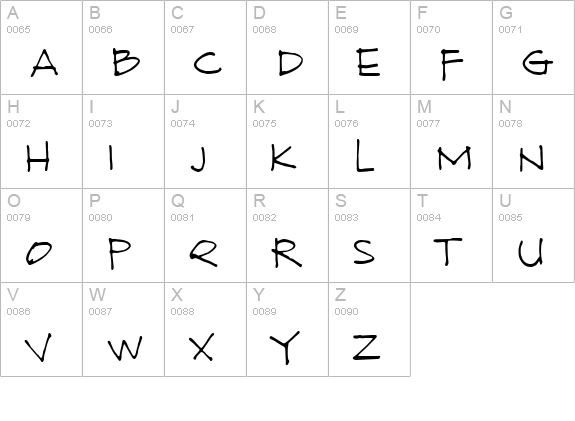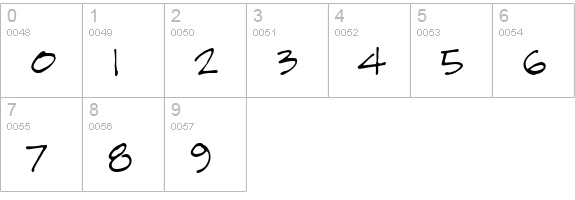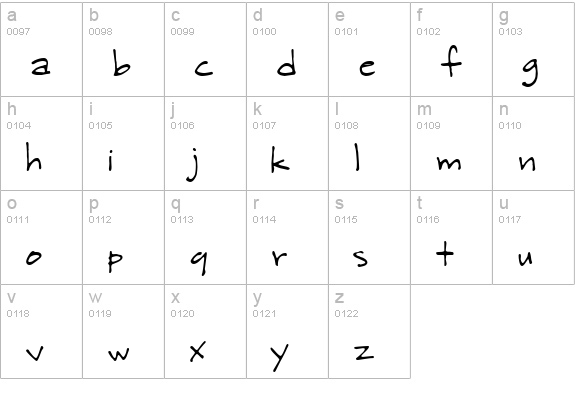
CK Sketch font is a whimsical and playful typeface that adds a hand-drawn touch to any design project. Its unique hand-lettered style gives a fun and casual feel, making it perfect for a variety of creative projects such as posters, greeting cards, and social media graphics. The uneven lines and quirky characters of CK Sketch font bring a sense of authenticity and charm to your designs. What's even better is that CK Sketch font is available for free download at FontsMarket.com! This means you can easily access this delightful font and use it in your projects without any cost. So if you're looking to add a touch of creativity and personality to your designs, look no further than CK Sketch font. Download it today and let your imagination run wild!